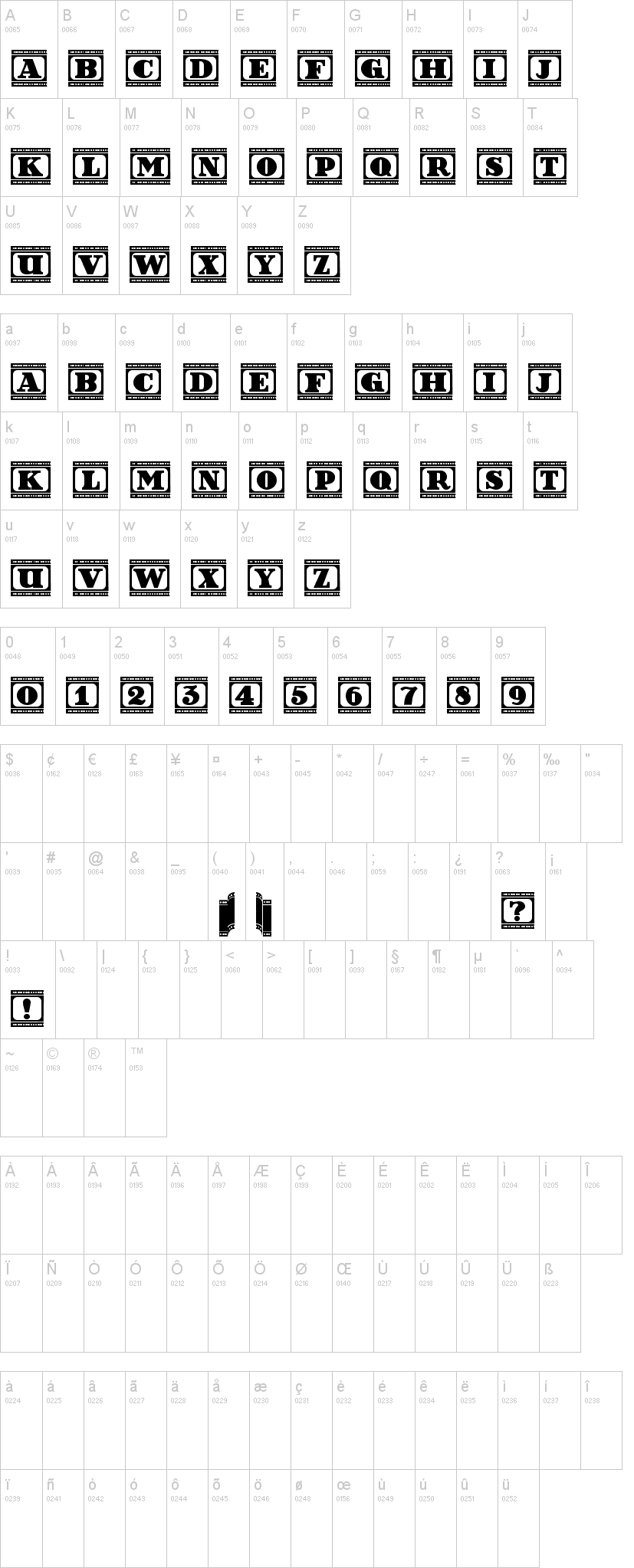
FilmLettersFilled.ttfNote of the author"Film Letters" i an awesome decorative font family done in old movie film style. It would look great on any poster, banner or headline.